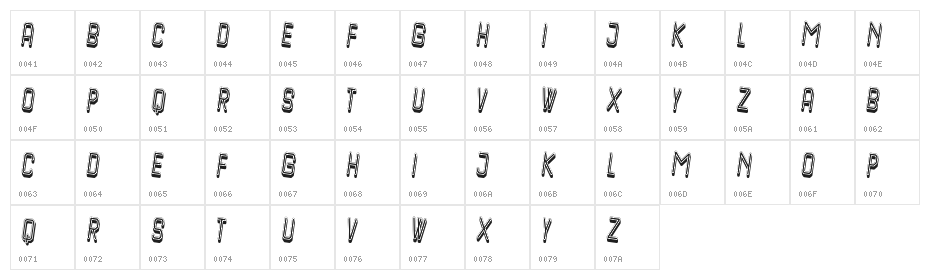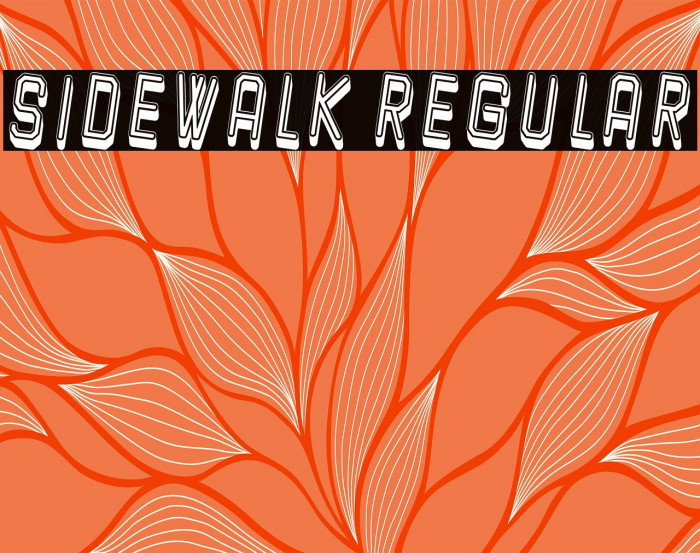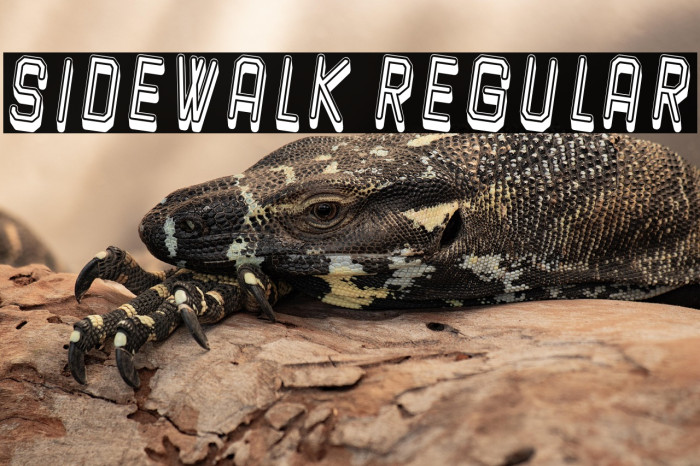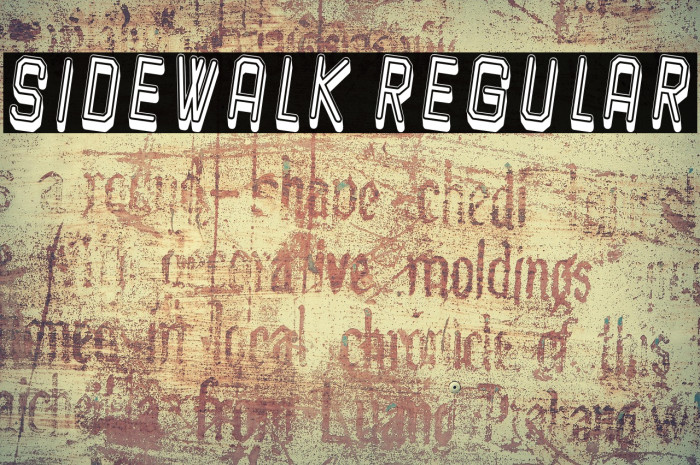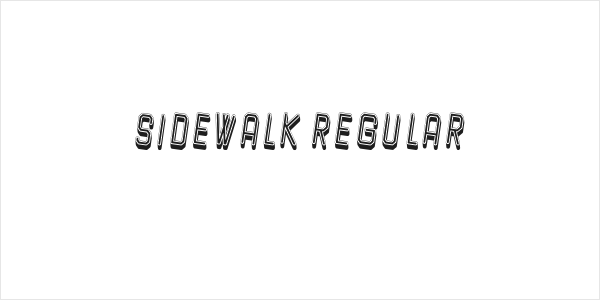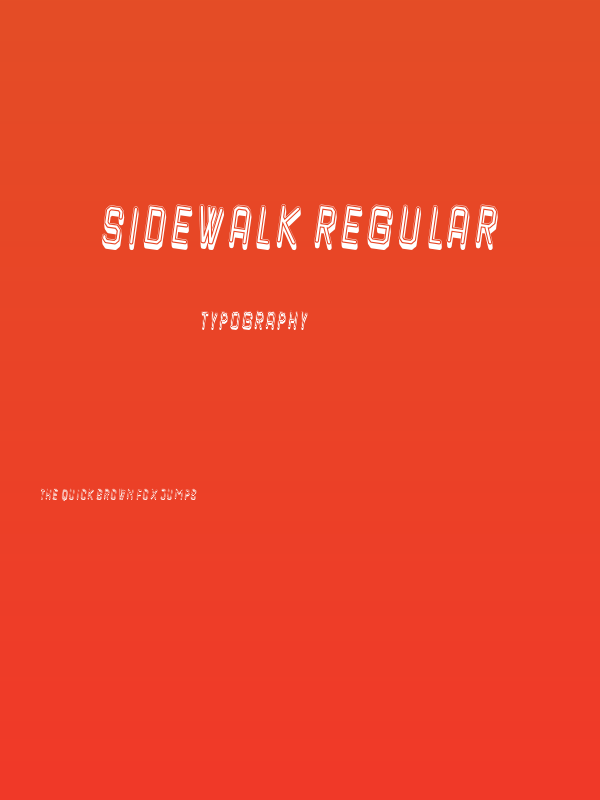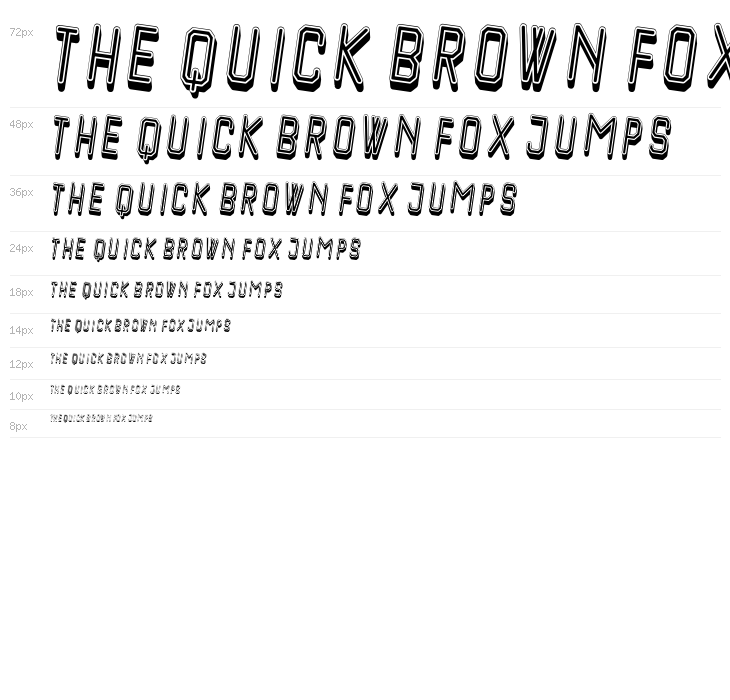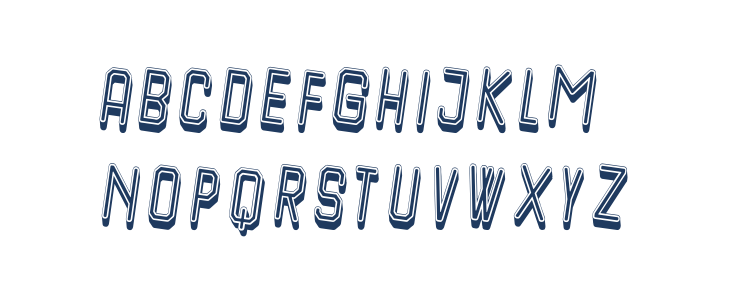
Sidewalk Regular Font
Sidewalk Regular Description
This font features a bold, three-dimensional appearance with a distinct shadow effect that gives each character a sense of depth and volume. The uppercase letters are designed with clean, geometric lines, creating a modern and dynamic look. The characters are slightly condensed, enhancing the compact and impactful nature of the font. The shadowing is consistent across all characters, adding a cohesive and polished feel. This style is particularly eye-catching and would stand out in any design project requiring a strong visual presence.
| Proposed Projects | Ideal for posters, headlines, logos, and any design needing a striking, modern aesthetic. |